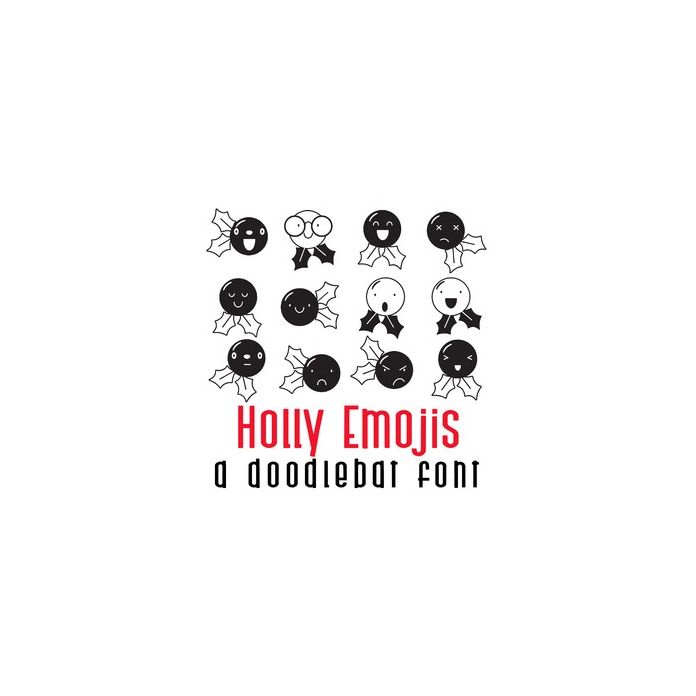
Holly Emojis Doodlebat Font
This fun doodlebat font features 26 holly emojis. Perfect for cards, gifts, decor, crafts, scrap book pages, planner stickers and more!